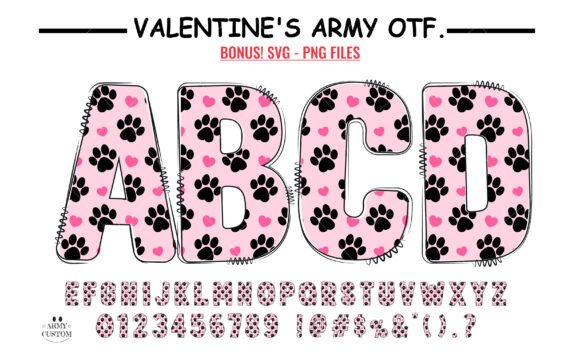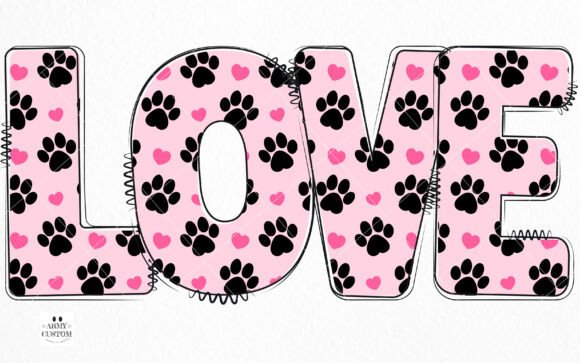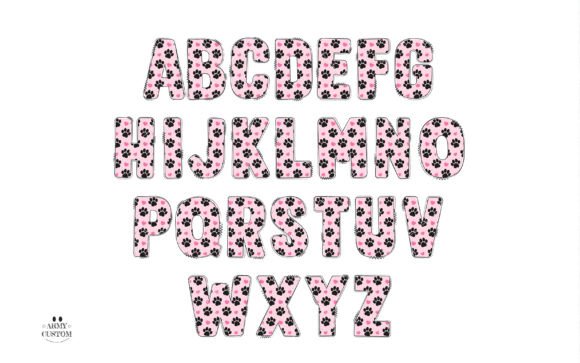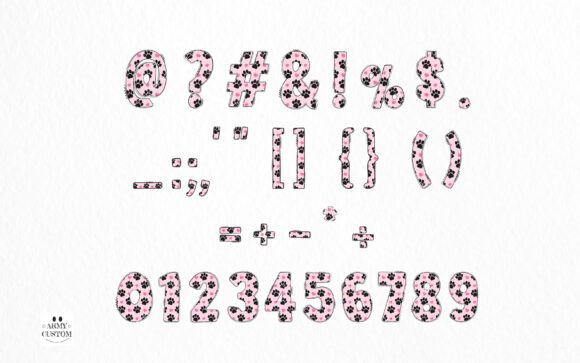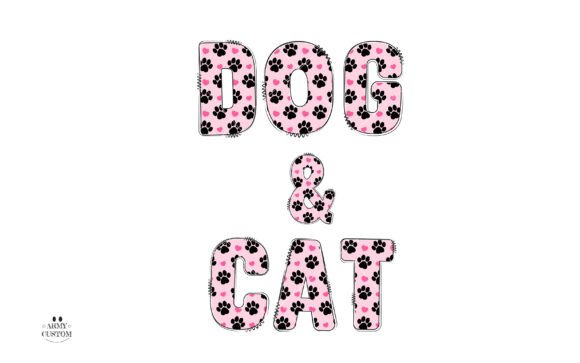
Love Valentine's Dog Paw Font
Immerse yourself in affection with the enchanting “Valentine’s Army Dog Paw Alphabet” font. Every stroke of this doodle font tells a tale of love, making it the perfect way to express your sentiments on the day dedicated to love. With each letter permeated by intricately doodled heart patterns, it’s a font that’s sure to touch your heart. Ideal for heartfelt messages, designs and creations this Valentine’s Day, beautifully articulating the universal language of love!